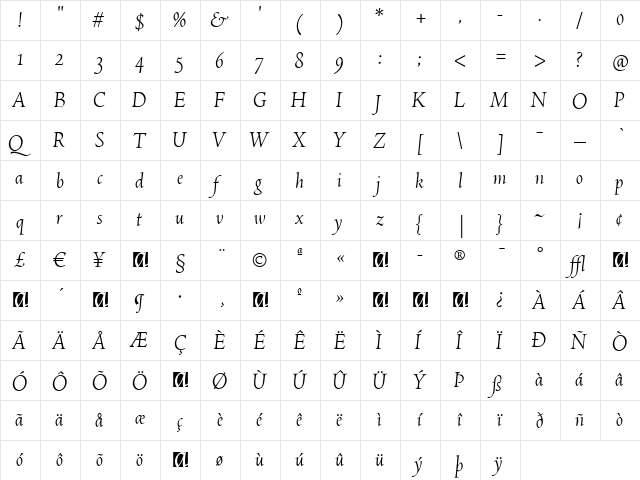
Spira-LightItalic Regular Font Preview
| Designer | Andy Stockley |
Design Context for Spira-LightItalic Typeface
Spira-LightItalic takes a measured approach to typography — its balanced proportions and neutral character make it a reliable workhorse for both digital and print work. The dynamic lean of this cut emphasises speed and emphasis in any layout. The delicate stroke weight brings airiness and refinement to layouts.